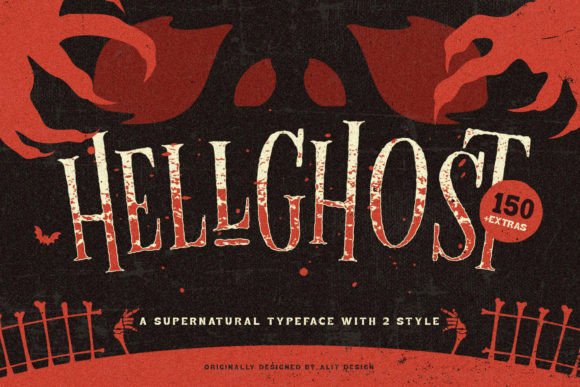
Unleash the Spook: Discover the Hellghost Font for Your Halloween Projects
As the spookiest time of the year approaches, designers and crafters are on the lookout for the perfect font to add a touch of eeriness to their Halloween projects. Look no further than the Hellghost Font, a scary and fun display font that’s sure to cast a spell on your creations. In this article, we’ll dive into the details of this fantastic font and explore how it can elevate your designs to new heights.
The Perfect Font for Halloween Projects
Hellghost is a specially designed font that’s perfect for Halloween-themed projects. Its spooky and mysterious vibe makes it an ideal choice for creating eye-catching designs that will leave a lasting impression on your audience. Whether you’re working on a flyer, poster, or social media graphic, this font is sure to add a touch of eeriness that will make your design stand out.
One of the standout features of the Hellghost Font is its PUA (Private Use Area) encoding. This means that you can access all of the glyphs and swashes with ease, giving you complete creative control over your designs. With PUA encoding, you can effortlessly navigate the font’s extensive character set, including alternative letters, ligatures, and decorative elements.
A Great Addition to Your Font Library
The Hellghost Font is more than just a seasonal font – it’s a versatile addition to your font library that can be used in a variety of creative projects. Its unique and eye-catching design makes it perfect for:
- Halloween-themed designs, such as party invitations, flyers, and posters
- Horror-themed designs, such as movie posters, book covers, and social media graphics
- Crafting projects, such as handmade cards, gift tags, and scrapbooking pages
- Any design project that requires a touch of spookiness or whimsy
Key Features of the Hellghost Font
The Hellghost Font boasts a range of exciting features that make it a must-have for designers and crafters. Some of its key features include:
- Scary and fun display font perfect for Halloween projects
- Extensive character set, including alternative letters, ligatures, and decorative elements
- Perfect for a variety of creative projects, from Halloween designs to horror-themed projects
Tips for Using the Hellghost Font
To get the most out of the Hellghost Font, here are a few tips to keep in mind:
- Experiment with different font sizes and colors to create a unique look
- Combine the Hellghost Font with other fonts to create a striking contrast
- Use the font’s glyphs and swashes to add decorative elements to your designs
- Don’t be afraid to get creative and try out new and innovative design ideas
In conclusion, the Hellghost Font is a fantastic addition to any designer’s or crafter’s font library. Its spooky and mysterious vibe makes it perfect for Halloween projects, while its PUA encoding and extensive character set make it easy to use and versatile. Whether you’re working on a Halloween-themed design or just looking for a font that will add a touch of whimsy to your creations, the Hellghost Font is sure to impress.
Get Ready to Cast a Spell with the Hellghost Font